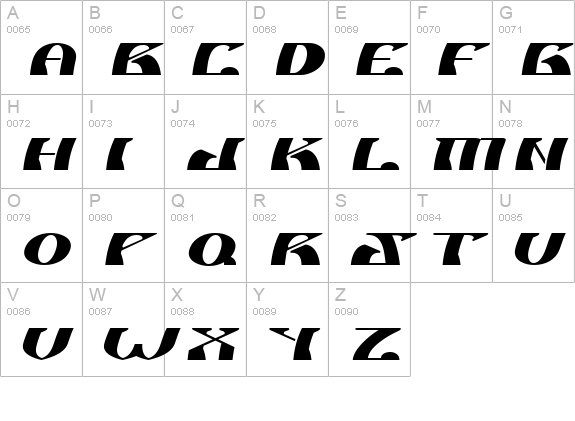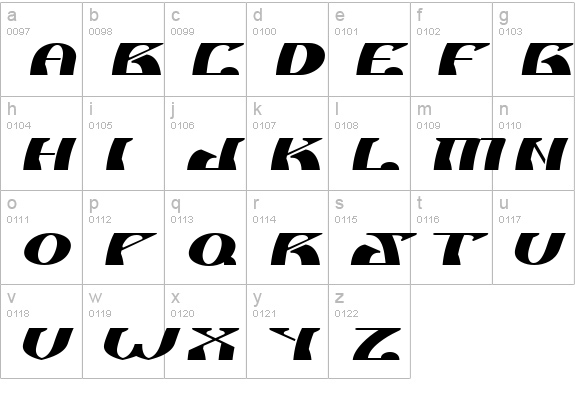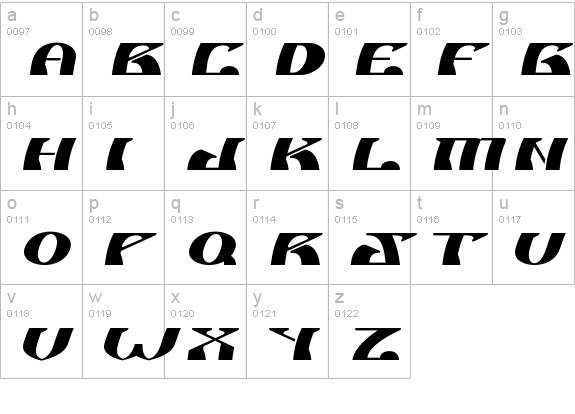
Nu shto Font Details
Nu shto font is a modern and stylish typeface that stands out with its sleek and elegant design. Perfect for a wide range of projects, from branding to editorial design, this font exudes sophistication and professionalism. Its clean lines and unique character set make it a versatile choice for any creative endeavor. What sets Nu shto font apart is that it is completely free to download at FontsMarket.com. This means you can easily access this high-quality font without any cost, making it a valuable resource for designers and creatives looking to elevate their work. Whether you're designing a logo, creating a poster, or working on a website, Nu shto font is a fantastic addition to your font collection. With its contemporary aesthetic and user-friendly nature, Nu shto font is sure to become a go-to choice for your design projects. Download it today for free and see how it can enhance your creative vision.